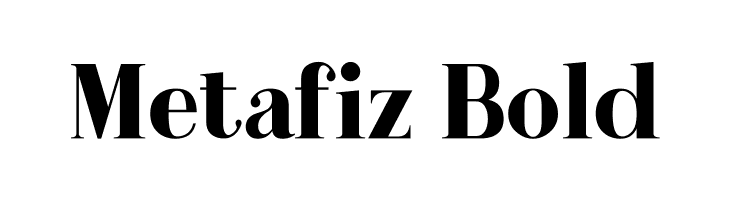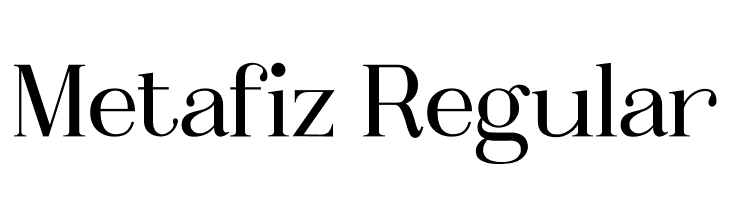
A bold, high-contrast serif font with elegant and pronounced serifs.
A sophisticated serif font with high contrast and elegant curves.
A bold, high-contrast serif font with sharp serifs and elegant style.